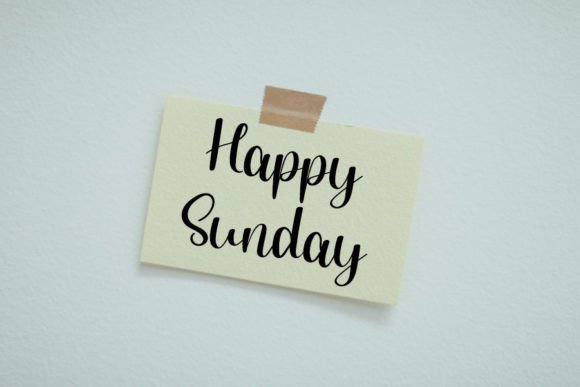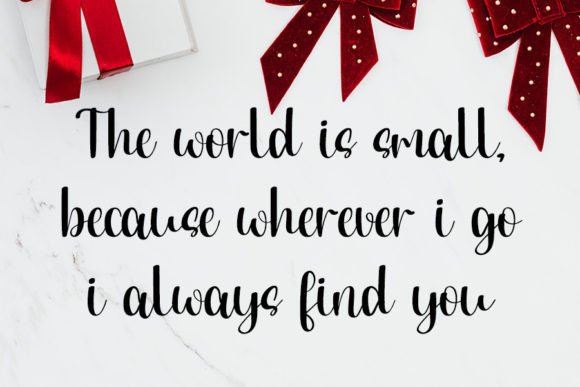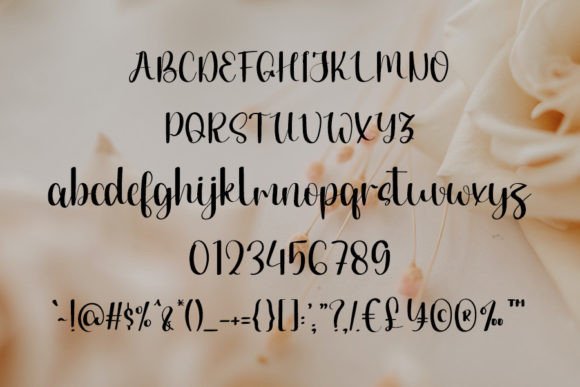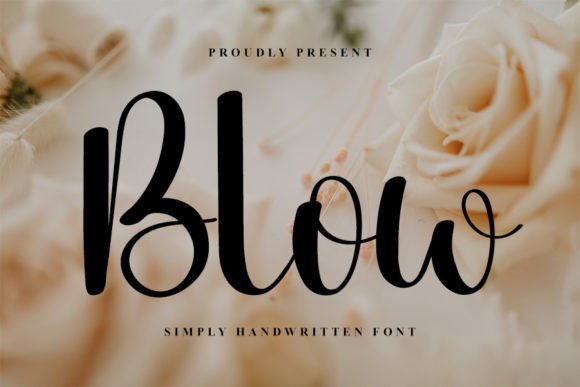
The Magic of Blow Font: Elevate Your Designs with Elegance
I’ll never forget the time I was working on a project for a client who wanted a sophisticated, elegant look. I had spent hours browsing through font libraries, but nothing seemed quite right. That was until I stumbled upon Blow Font, a beautiful handwritten font that instantly captured my heart. In this article, I’ll share my love for Blow Font, its features, and how to make the most of it in your designs.
A Personal Review: What I Love About Blow Font
Blow Font is a neat and beautiful handwritten font that exudes an elegant touch, making it perfect for a wide range of projects. Here are some things I love about it:
- ✨ Elegant and sophisticated: Blow Font has an incredibly distinct and timeless style that adds a touch of luxury to any design.
- ✅ Versatile: This font is suitable for various projects, from wedding invitations and branding materials to social media graphics and more.
- 💫 Easy to read: Despite its elegant nature, Blow Font remains highly legible, even at smaller sizes.
While Blow Font is an excellent choice for many designs, there are a few things to keep in mind:
- 🤔 Limited availability of alternate characters: While Blow Font does offer some stylistic alternates, the selection is limited compared to other fonts.
- ⚠️ May not be suitable for very long texts: Due to its elegant and cursive nature, Blow Font might not be the best choice for lengthy texts, such as articles or books.
While the true story behind Blow Font’s creation is unknown, it’s easy to imagine that the designer was inspired by the elegance of handwritten calligraphy. Perhaps they wanted to create a font that would evoke feelings of luxury and sophistication, while still being approachable and friendly.
| Font Name | Blow Font |
| Author | Kongsi.Co |
| What type of projects is Blow Font best suited for? | Blow Font is perfect for projects that require an elegant and sophisticated touch, such as wedding invitations, branding materials, and social media graphics. |
| Is Blow Font easy to read? | Yes, despite its elegant nature, Blow Font remains highly legible, even at smaller sizes. |
| Does Blow Font offer any OpenType features? | Yes, Blow Font offers some OpenType features, such as stylistic alternates and glyphs, which can be accessed in compatible design platforms. |